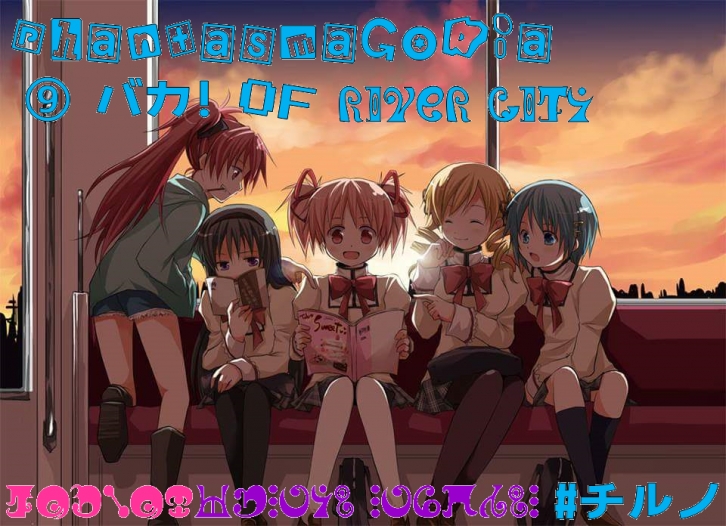
This font is made out of Heaven's fonts and anyone's fonts(in as well as the Madoka Magica logo font and the bitmap fonts included on).
Hence the name, the game names Phantasmagoria of Flower View(a Touhou game) and River City Ransom(Developed by Technos Japan Corp.) combined together.